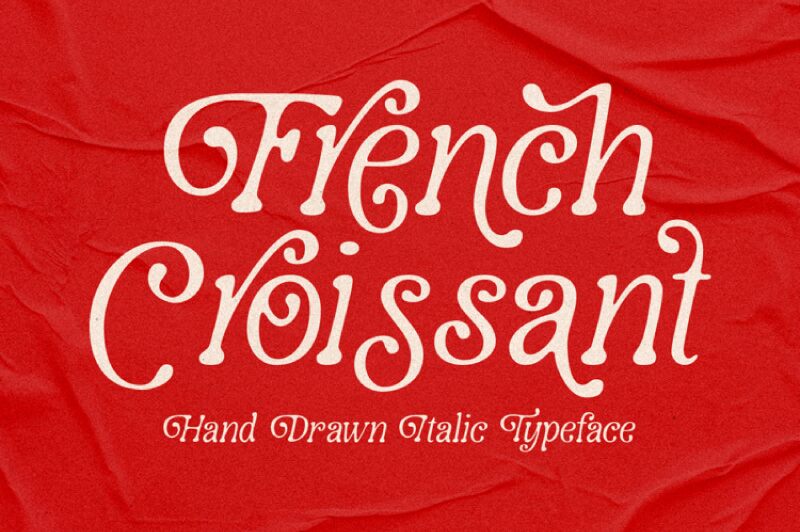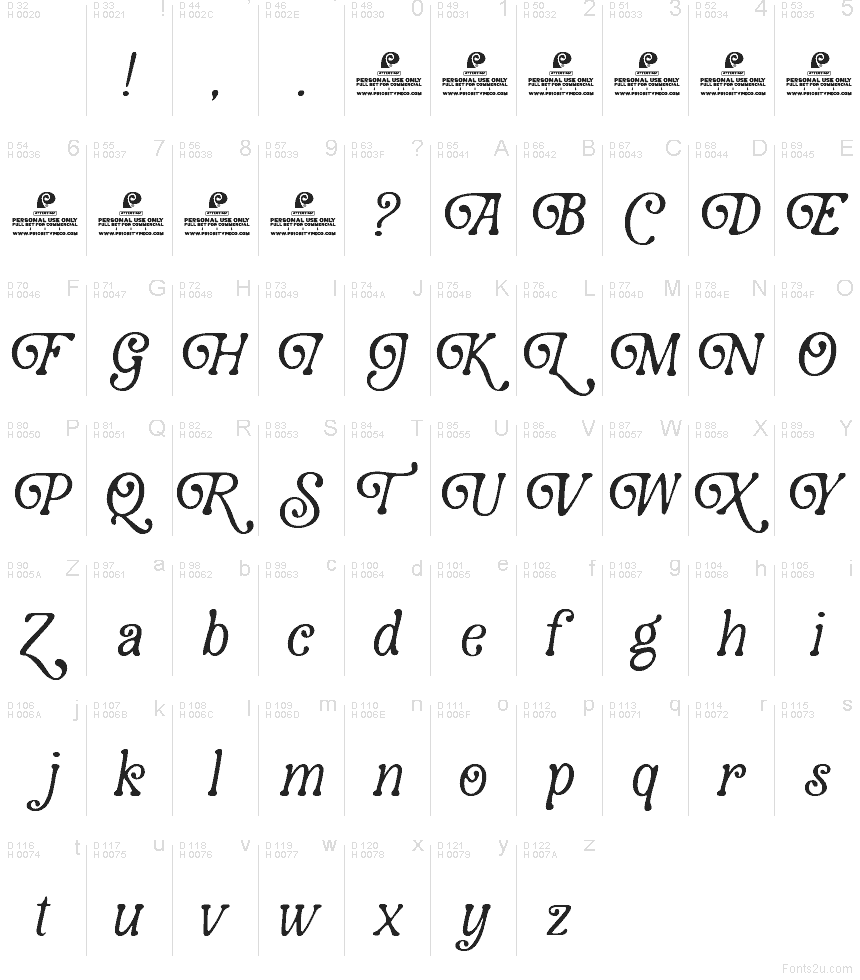
French Croissant DEMO
French Croissant font by Prioritype Co is a free retro script typeface that tastes like a hand-lettered café awning in Paris. Loose curls, swooping capitals, and slightly grainy strokes give it a warm, buttery texture that feels both nostalgic and playful. The rhythm is lively but still legible, so your words look like they’ve been written with a confident, inky flourish.
Using French Croissant font, you can instantly dress up bakery logos, café menus, packaging, wedding signage, social media graphics, and vintage-inspired posters. This free font shines at larger sizes where its curls and loops can breathe, while short phrases make the most impact. Pair it with a clean, narrow sans serif for body text to keep the overall look charming but not cluttered.